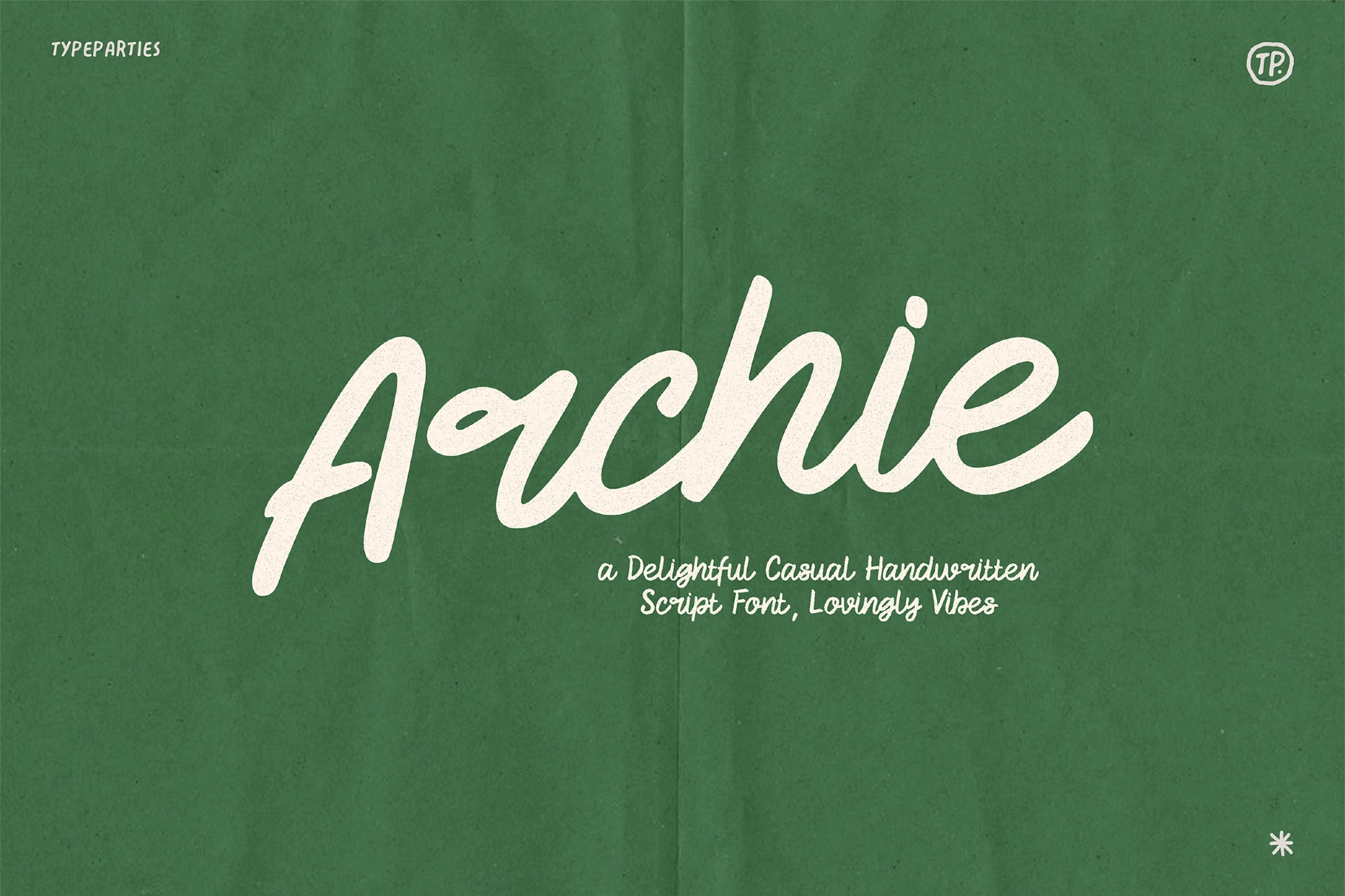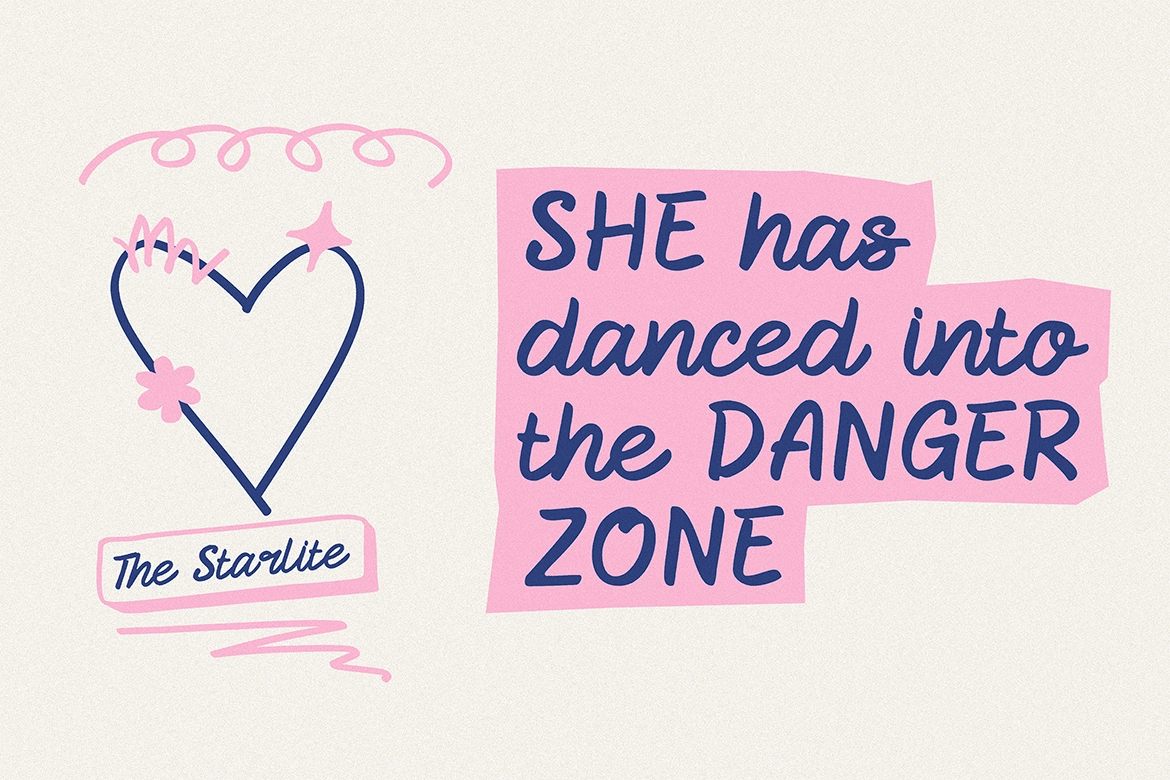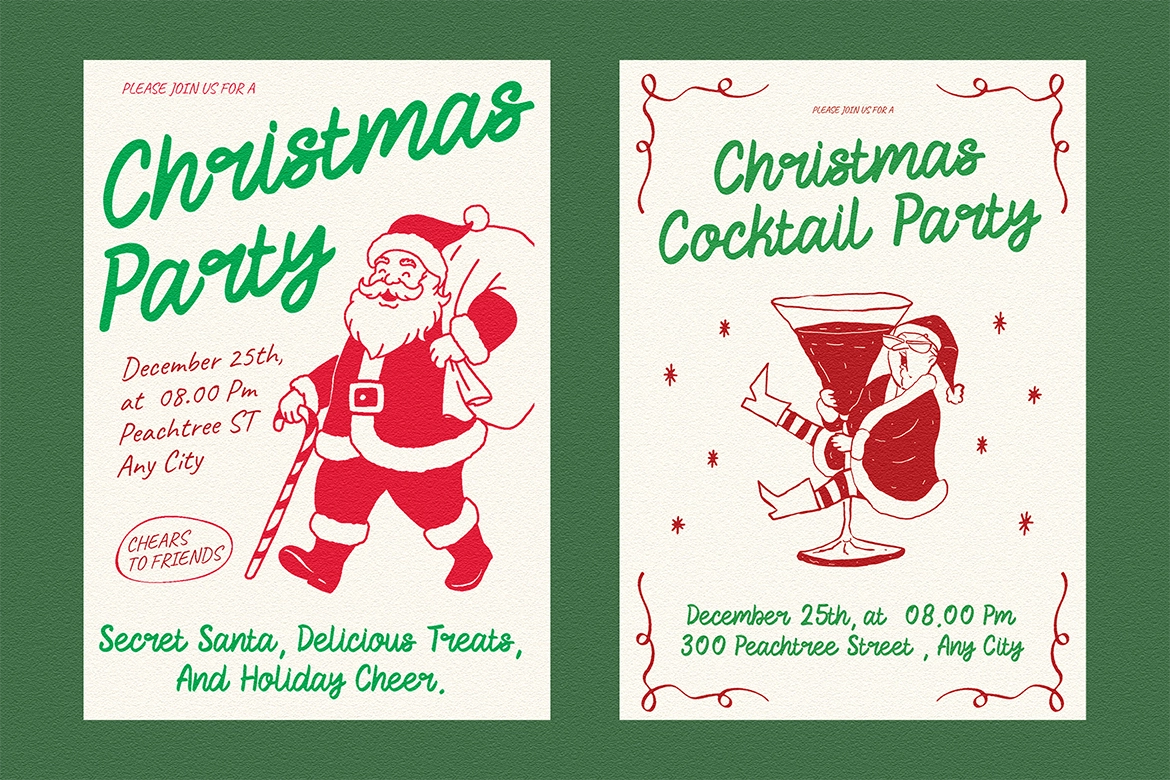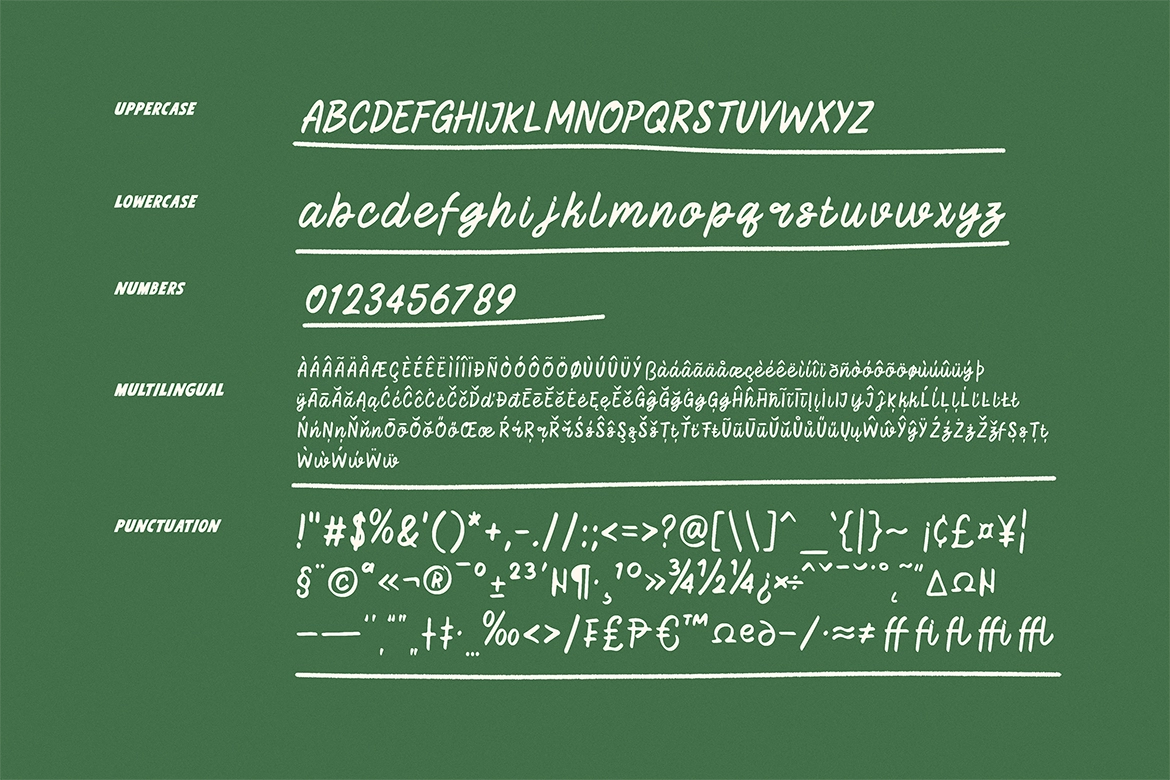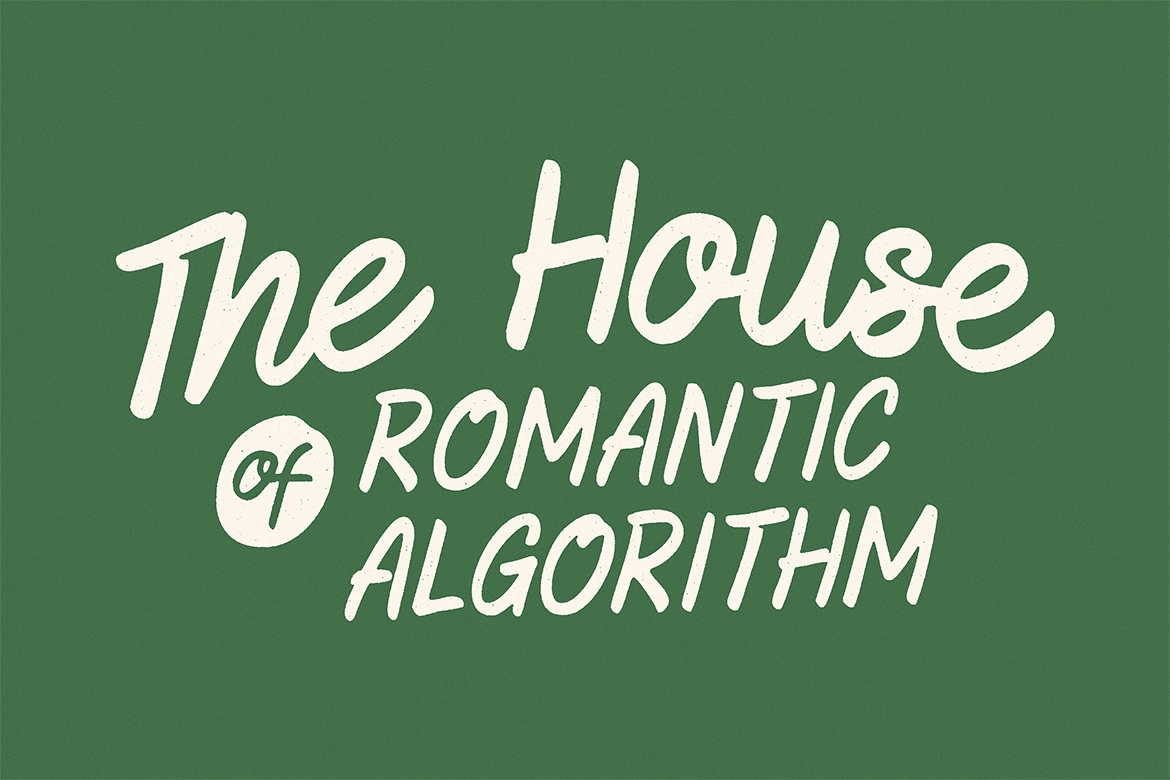
Archie Handwritten Script Font
Add warmth and personality to your designs with Archie Handwritten Script Font , a casual yet elegant typeface full of charm and natural flow. Each letter is crafted with smooth, playful curves that capture the authentic feel of real handwriting.
Perfect for branding, invitations, packaging, social media posts, and creative projects, Archie adds a friendly and approachable tone to any layout. Its fluid strokes and organic rhythm make it ideal for designers seeking a balance between sophistication and simplicity.